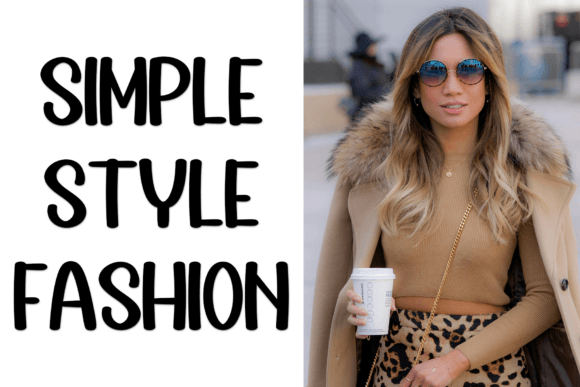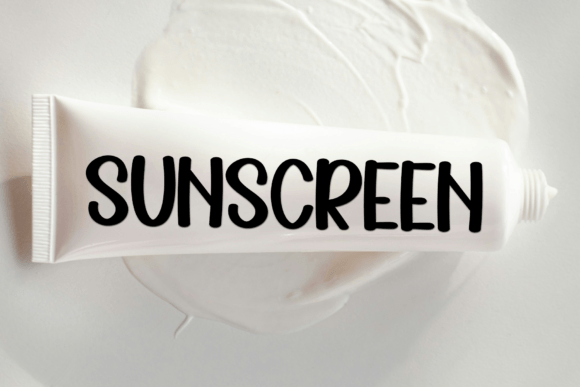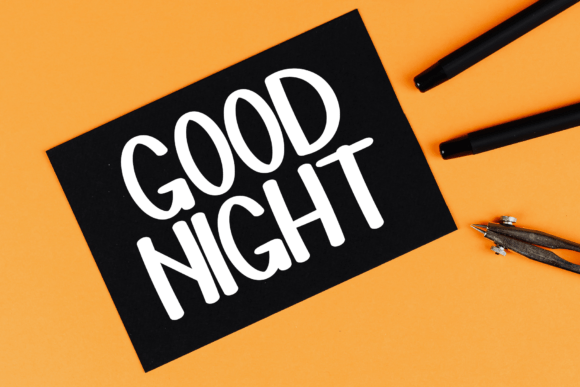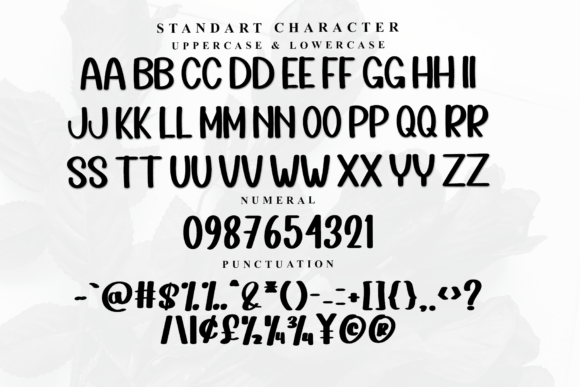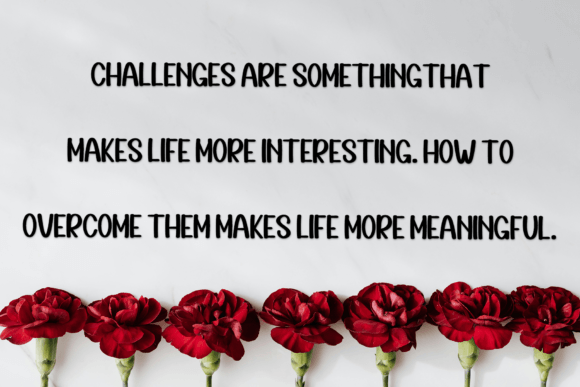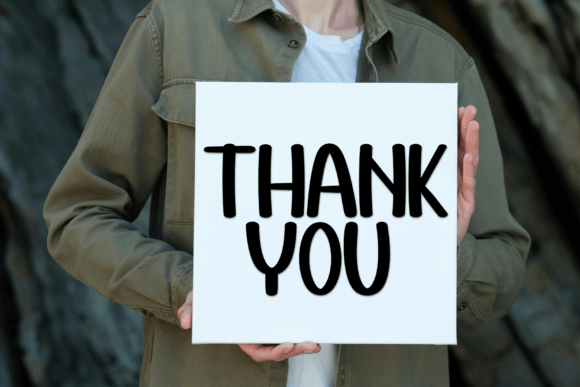
Introducing Family Camping Font: The Perfect Holiday Companion for Designers and Crafters
The holiday season is upon us, and what better way to get into the spirit than with a festive and happy typeface that captures the essence of this special time of year? Look no further than the Family Camping Font, a decorative font that adds a touch of charm to your designs. Whether you’re a designer, crafter, or simply someone who loves the holidays, this font is sure to bring a cheerful and nostalgic atmosphere to your words.
A Festive and Happy Typeface
Family Camping Font is a unique and eye-catching typeface that is perfect for holiday-themed projects. Its decorative elements and unique flair make it stand out from other fonts, adding a touch of magic to your designs. Imagine being able to create beautiful greeting cards, gift labels, and other holiday-themed projects that capture the spirit of the season. With Family Camping Font, you can do just that.
Whether you’re a professional designer or a crafter who loves to make things, Family Camping Font is the perfect companion for your holiday projects. The font is designed to be easy to use, with a PUA (Private Use Area) coding that allows you to access all the amazing glyphs and ligatures easily. This means you can focus on creating beautiful designs, rather than struggling with complicated font codes.
What Can You Use Family Camping Font For?
The possibilities are endless with Family Camping Font! Here are just a few ideas to get you started:
- Greeting Cards: Create beautiful holiday greeting cards that will make your friends and family feel special.
- Gift Labels: Add a touch of magic to your gifts with custom labels that feature the Family Camping Font.
- Holiday-themed Projects: Use the font to create festive holiday-themed projects, such as party invitations, decorations, and more.
- Signs and Displays: Create eye-catching signs and displays for your holiday events or promotions.
Why Choose Family Camping Font?
There are many reasons why Family Camping Font is the perfect choice for your holiday projects. Here are just a few:
- Unique and Eye-Catching: The font’s decorative elements and unique flair make it stand out from other fonts.
- Easy to Use: The PUA coding makes it easy to access all the amazing glyphs and ligatures.
- Festive and Happy: The font captures the spirit of the holiday season, adding a cheerful and nostalgic atmosphere to your words.
- Versatile: The font can be used for a wide range of projects, from greeting cards to signs and displays.
Tips for Using Family Camping Font
Here are a few tips for getting the most out of Family Camping Font:
- Experiment with Different Sizes: Try out different font sizes to see how the font looks in different contexts.
- Play with Colors: Experiment with different colors to find the perfect combination for your holiday project.
- Mix and Match: Try pairing Family Camping Font with other fonts to create a unique and eye-catching look.